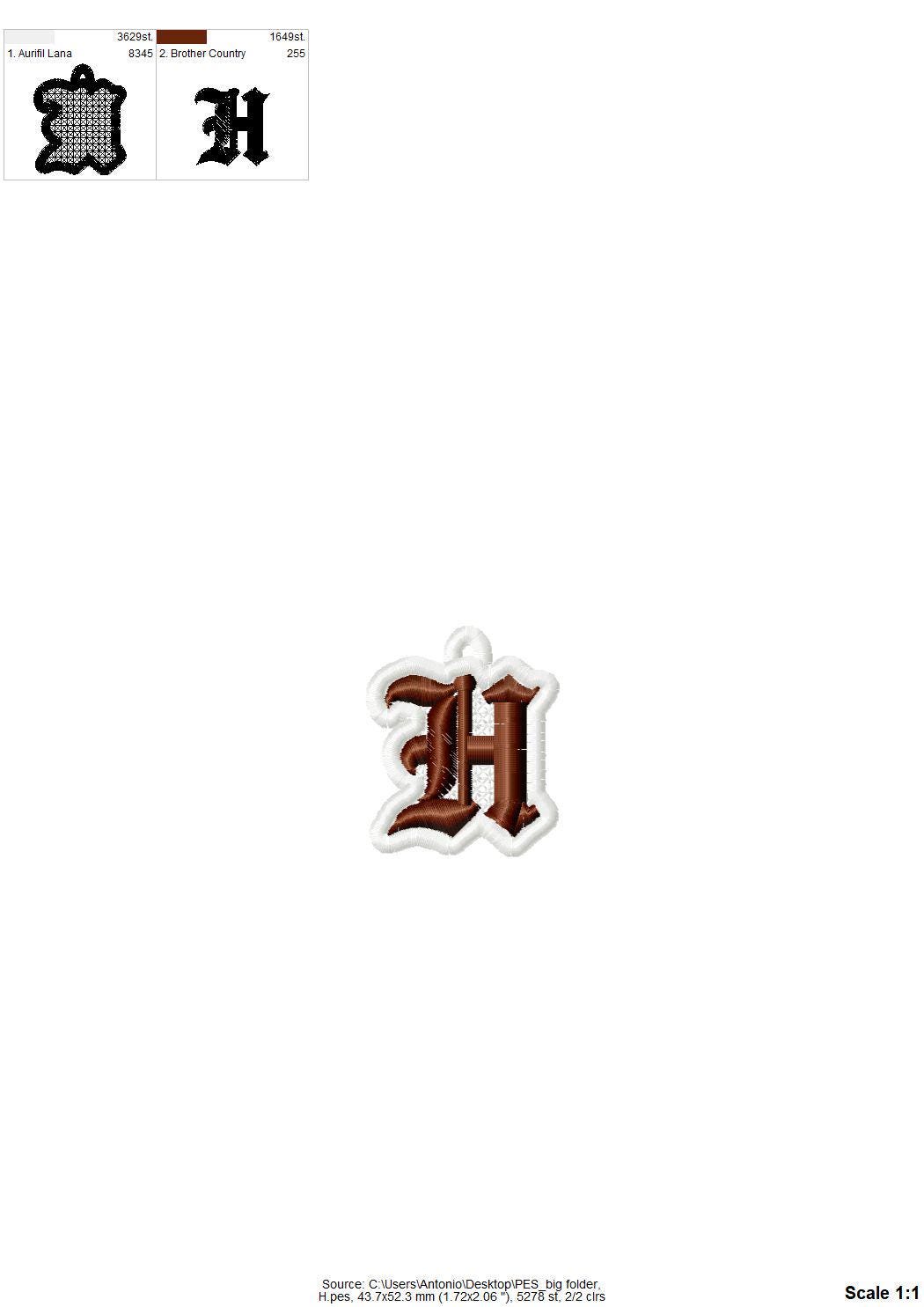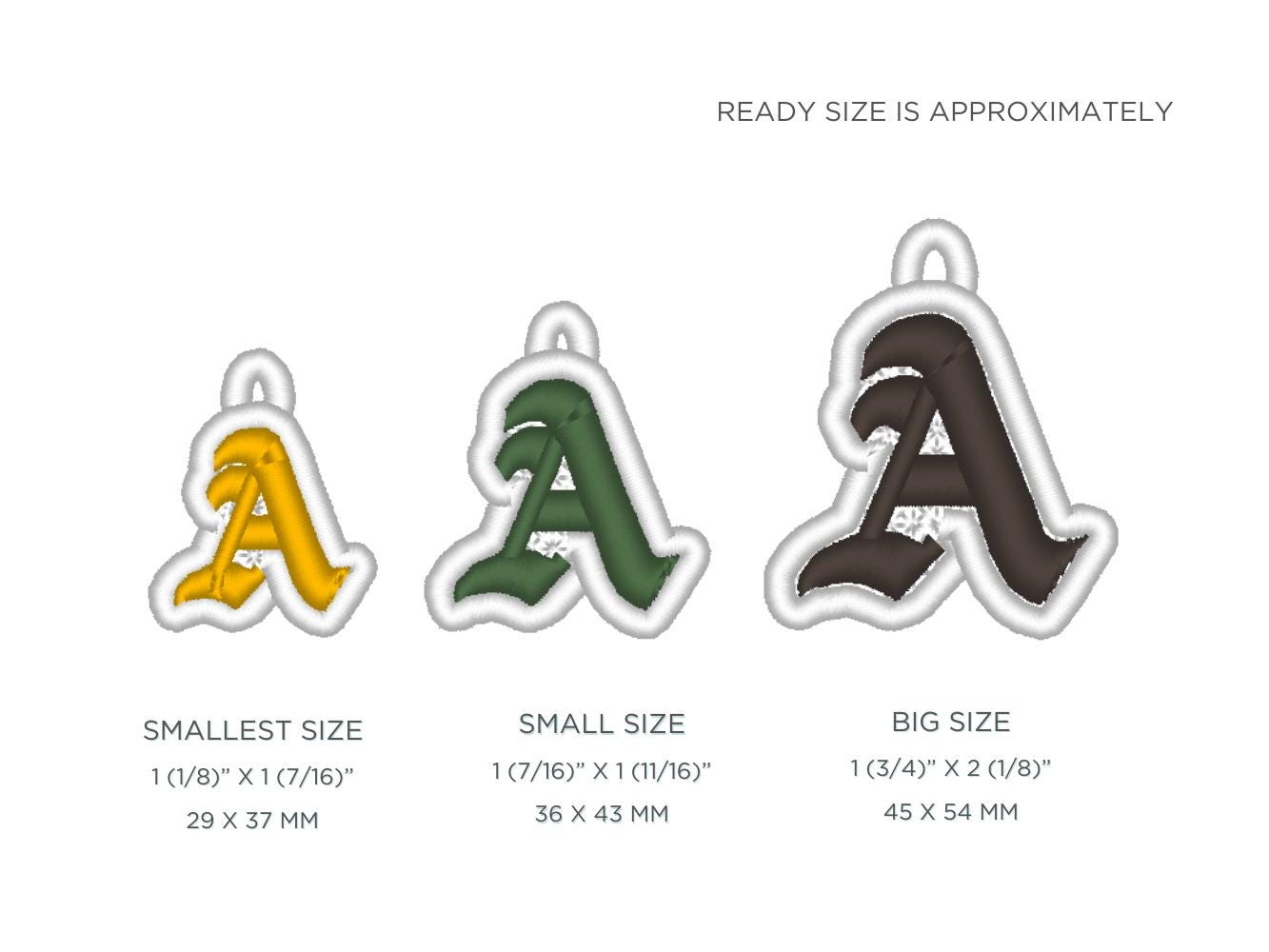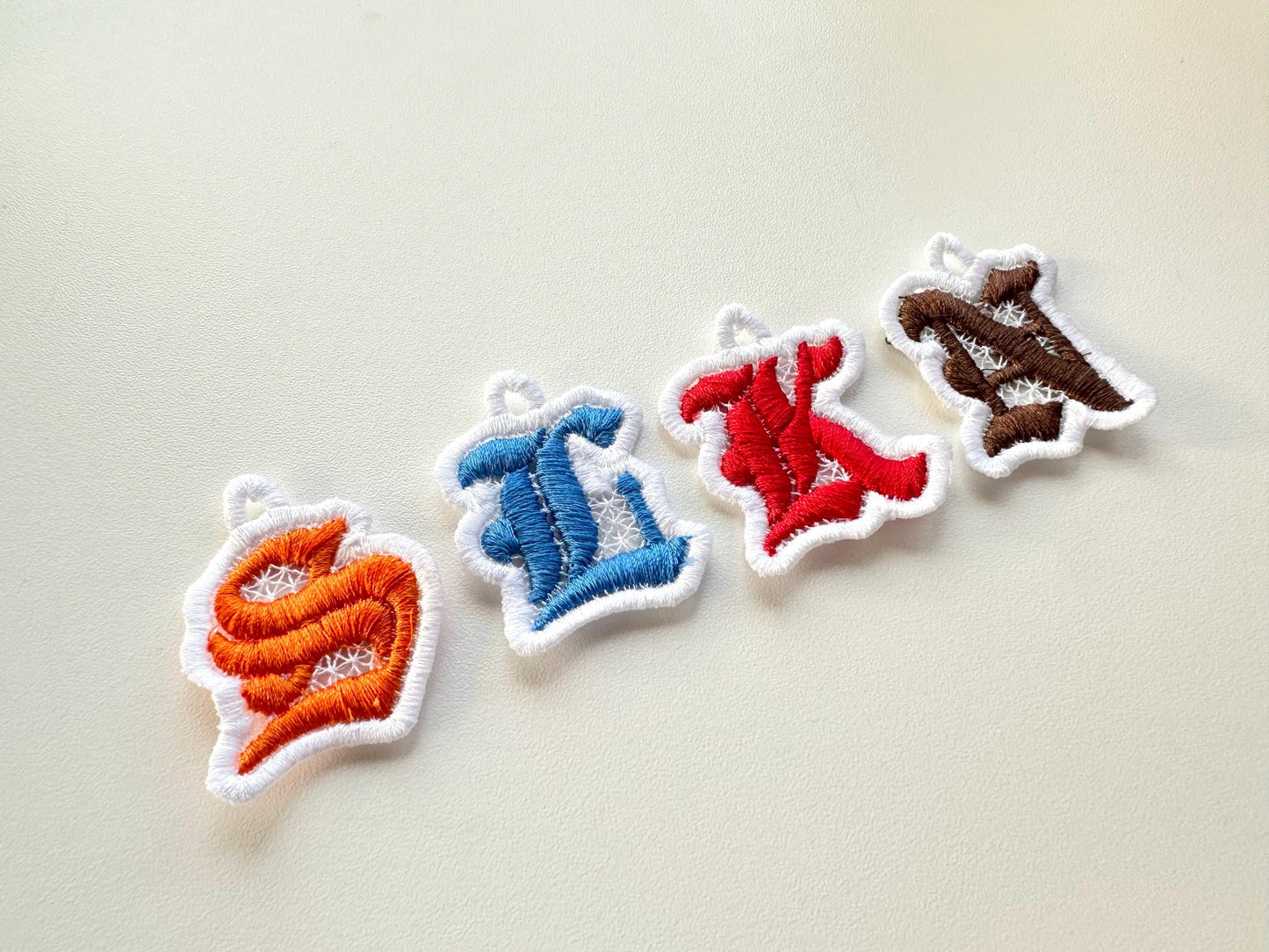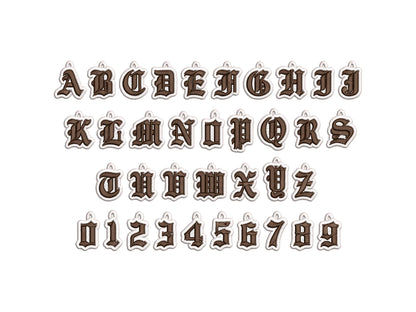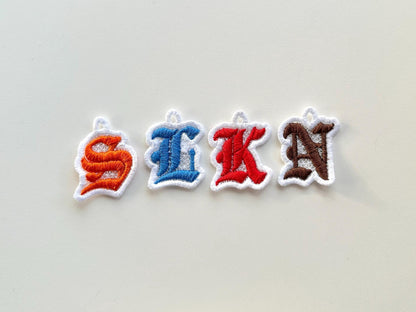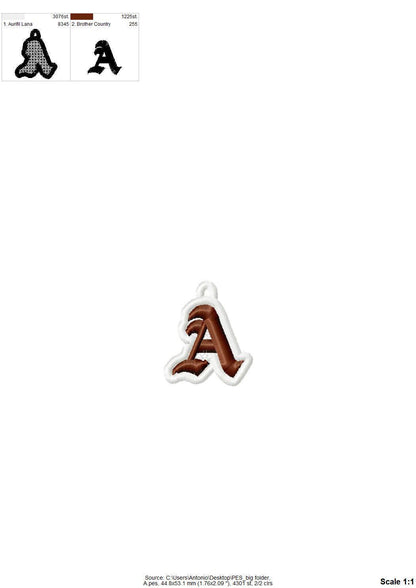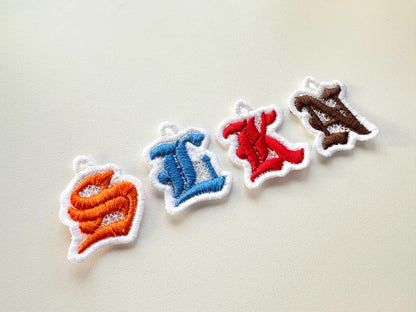
Old English Font FSL Earrings
Uppercase letters A to Z, numbers 0 to 9 and punctuation, stitched as free standing lace on wash-away stabilizer, in three sizes: 1.4, 1.7 and 2.1 inches.
- Old English free standing lace letters
- Uppercase A-Z, numbers 0-9, punctuation
- 3 sizes, 1.4 to 2.1 in